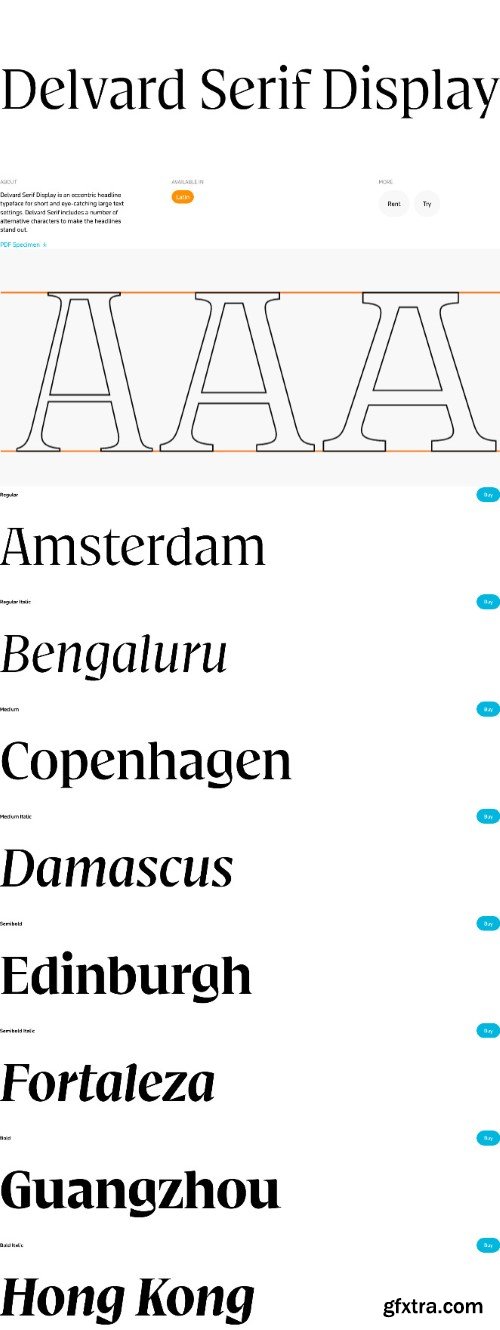
德尔瓦尔 serif、展示及副标题字体家族
Delvard Serif Display is a captivating headline typeface designed to make a bold statement in large text settings. With its eccentric and distinctive style, Delvard Serif adds a touch of sophistication and flair to any design project. Whether used for magazine headlines, poster titles, or website banners, this typeface commands attention and leaves a lasting impression on viewers. One of the key features of Delvard Serif Display is its inclusion of alternative characters, allowing designers to customize and embellish headlines with unique and eye-catching details. These alternative characters add versatility and creativity to the typeface, enabling designers to experiment with different styles and variations to achieve the desired visual impact. With its elegant serifs and refined letterforms, Delvard Serif Display strikes the perfect balance between classic sophistication and modern appeal. Its clean lines and sharp angles ensure legibility even at large sizes, making it ideal for grabbing the audience's attention and conveying the intended message effectively. Whether used for editorial design, branding, or advertising, Delvard Serif Display offers designers a versatile and stylish option for creating memorable and impactful headlines that leave a lasting impression on viewers.